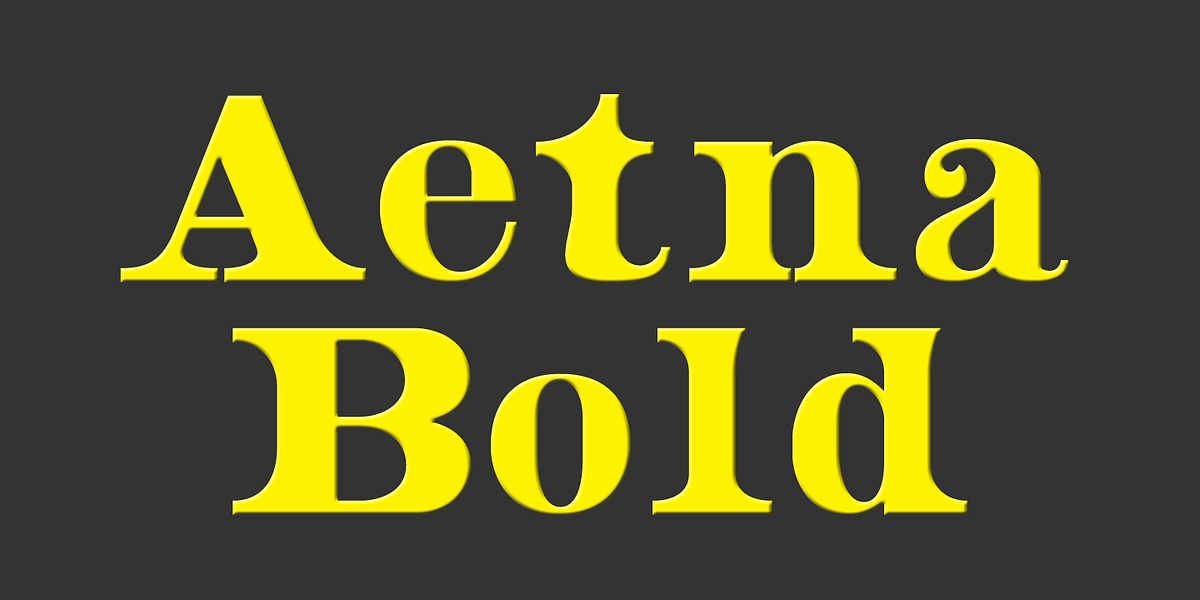
Aetna
Aetna Bold is a revival of a popular 19th-century wood type font. It features thick stems and pronounced serifs, reminiscent of Roman and Doric styles. The font has short descenders and a tall x-height, contributing to its distinctive appearance. Suitable for both text and display purposes, Aetna Bold offers a classic and bold aesthetic.